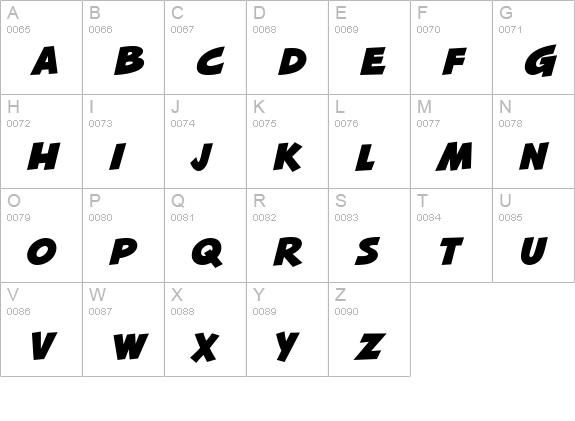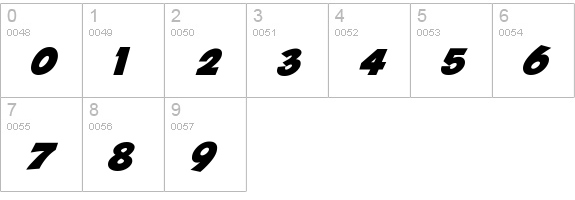
Squash MN Font Details
Squash MN is a modern and stylish font that exudes sophistication and elegance. Its clean lines and unique curves make it perfect for a wide range of design projects, from branding to advertising. This versatile typeface is sure to make your text stand out and grab attention. What makes Squash MN even more appealing is that it is available for free download at FontsMarket.com. This means that you can easily access this stunning font and incorporate it into your projects without any cost. Don't miss out on the opportunity to elevate your designs with the beautiful Squash MN font.